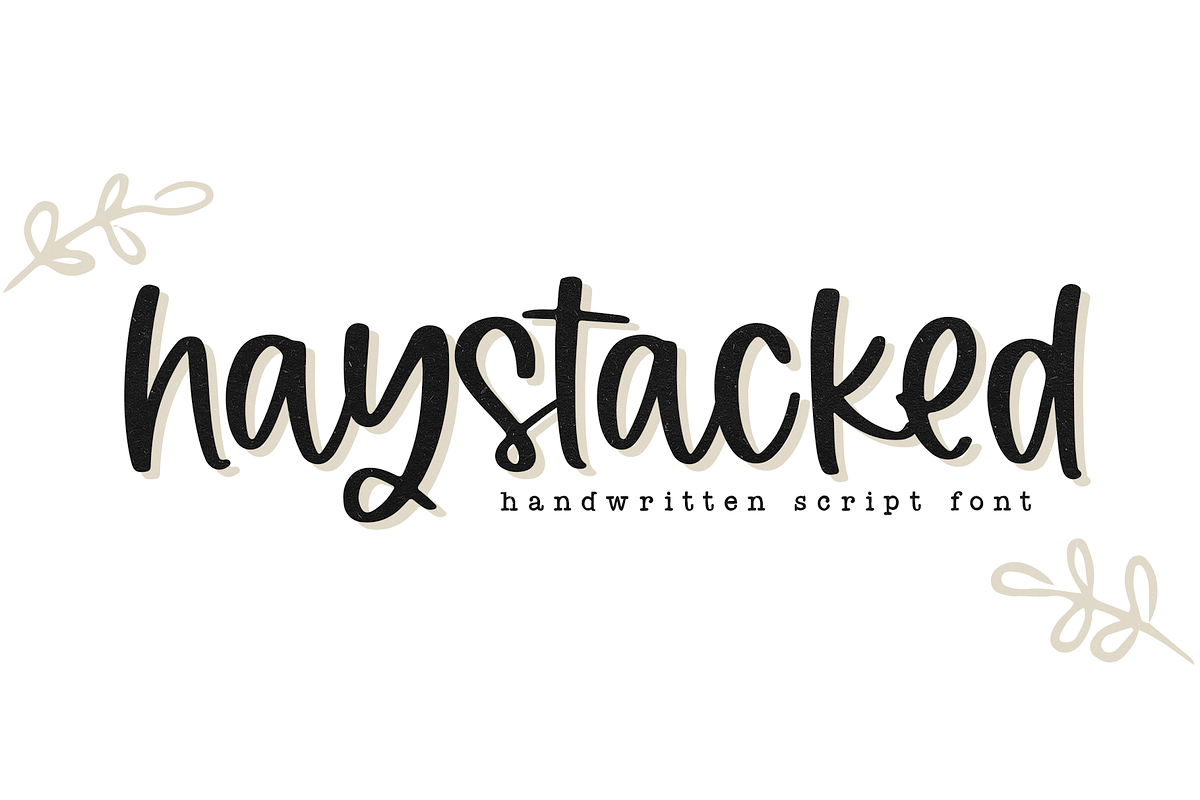
Haystacked | Handwritten Script Font Free Download
Haystacked | Handwritten Script Font Free Download is a charming and expressive handwritten script typeface that exudes a personal and casual feel. Featuring smooth, fluid strokes and unique, organic letterforms, this font is perfect for crafting personalized designs, logos, invitations, greeting cards, and social media posts. Its informal, playful style makes it ideal for projects that require warmth and authenticity.
Using the Haystacked | Handwritten Script Font Free Download adds a human touch to your typography. Whether you're working on a custom logo, designing a fun event invitation, or creating engaging social media graphics, this font brings a unique and heartfelt quality to your designs.